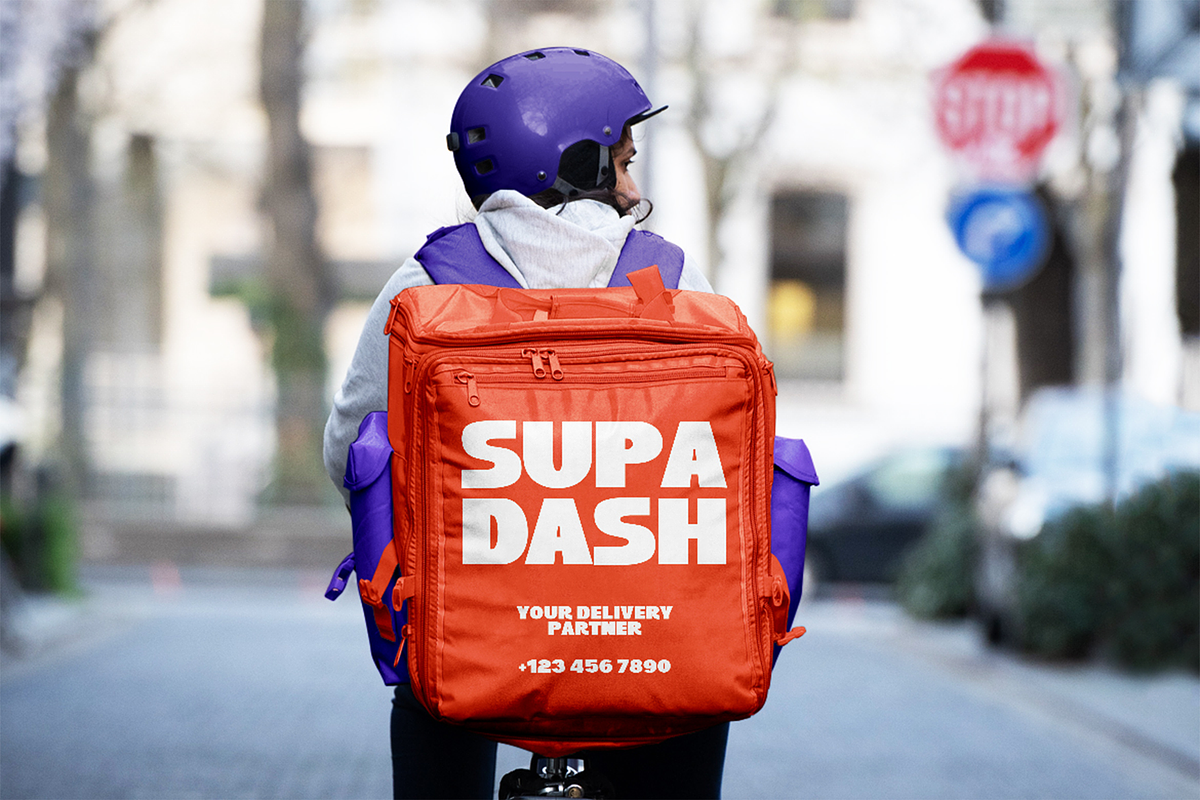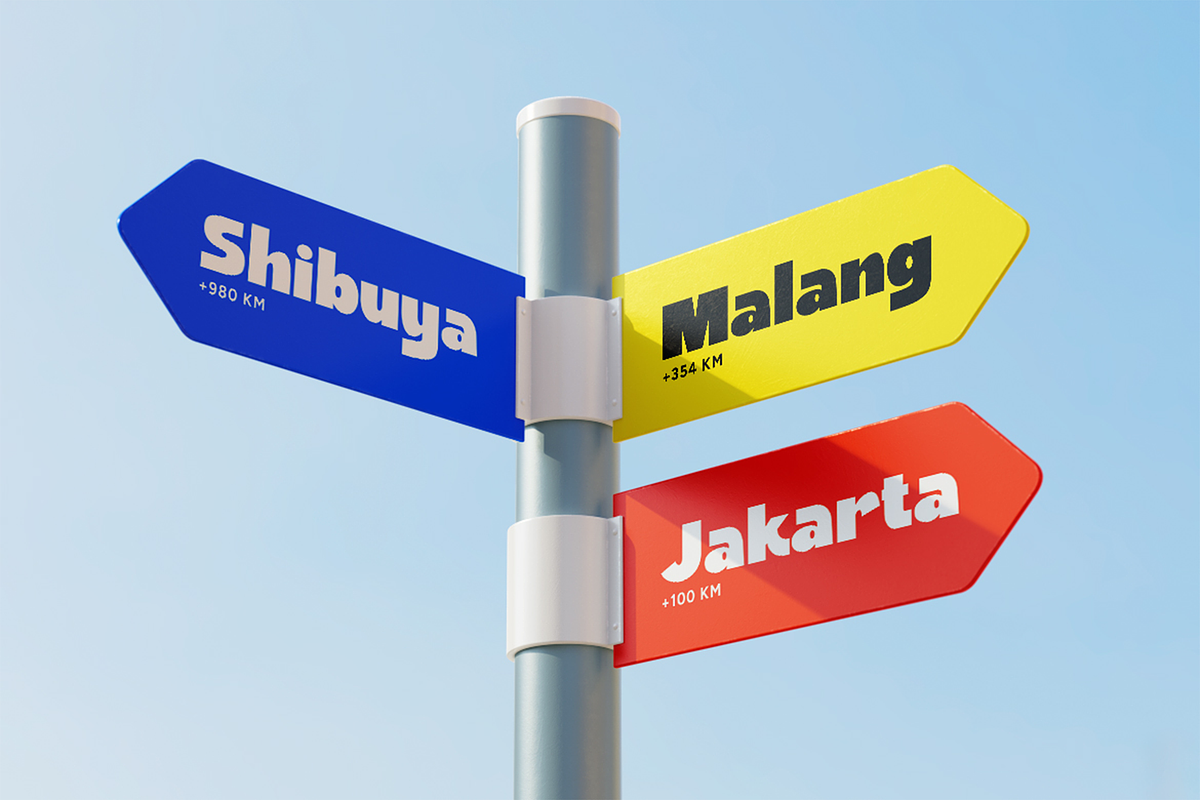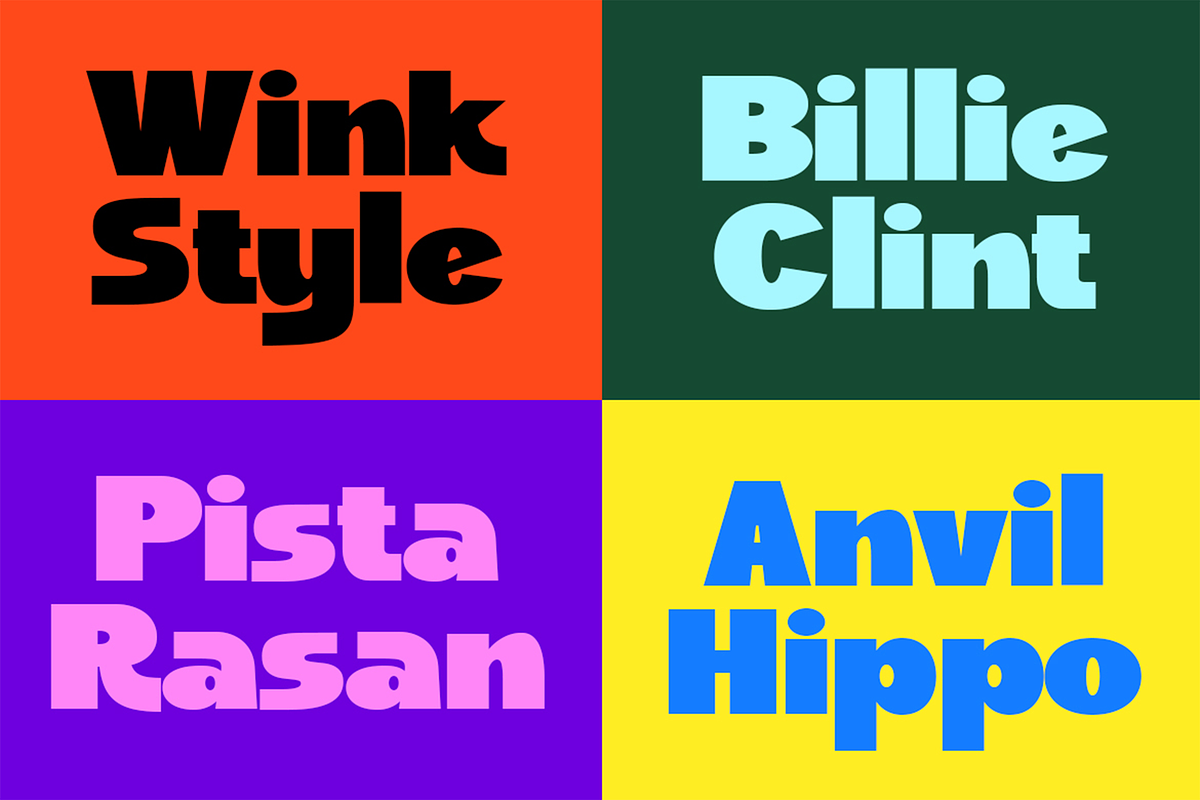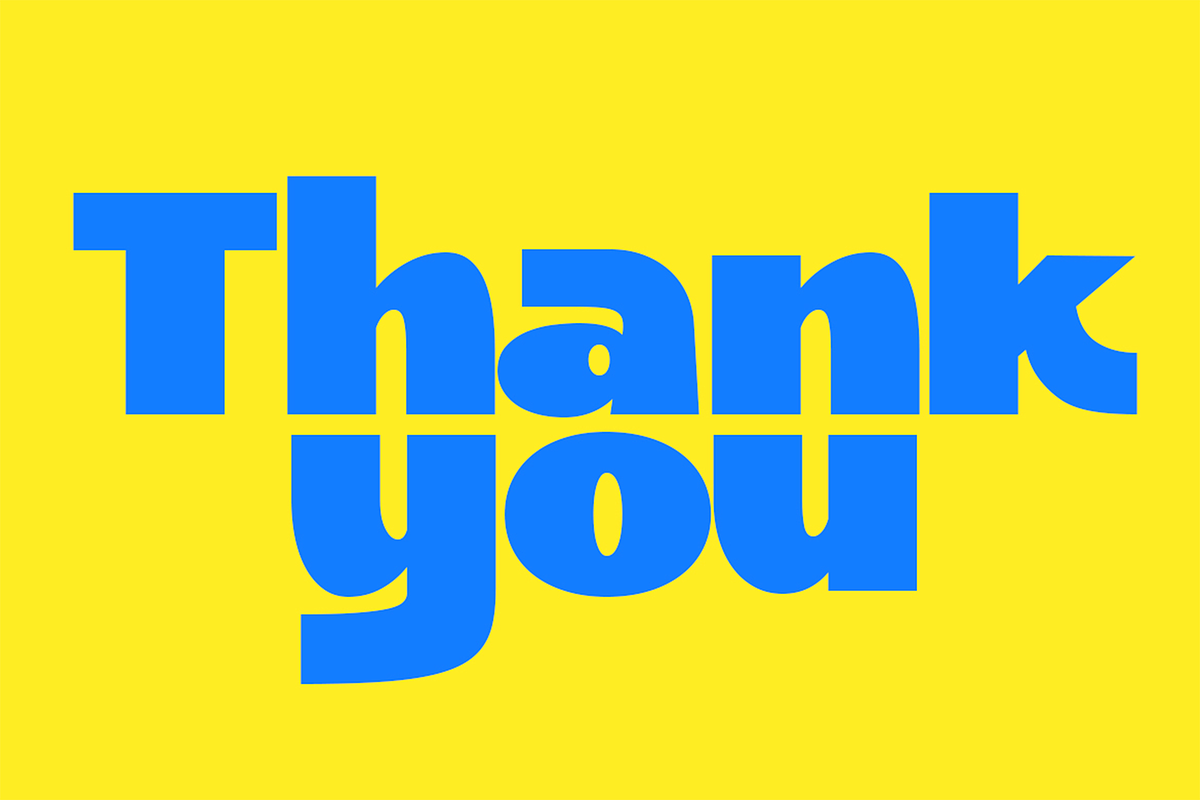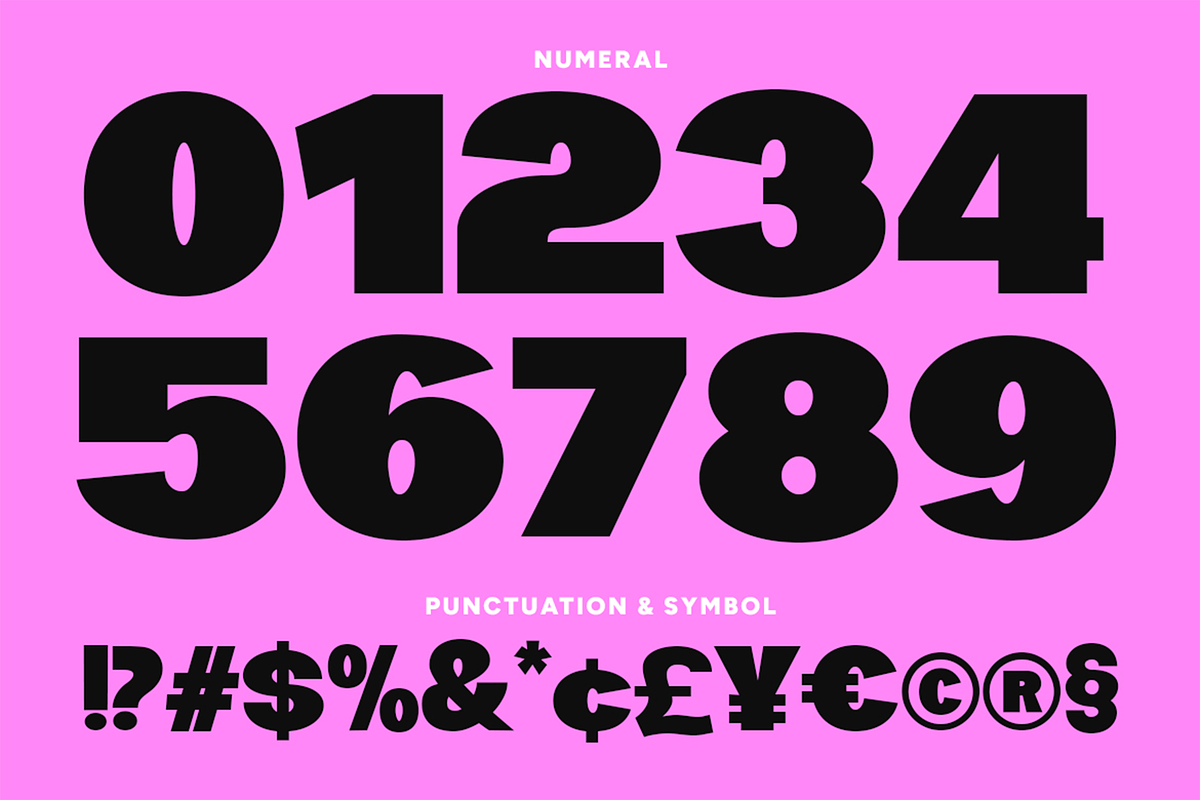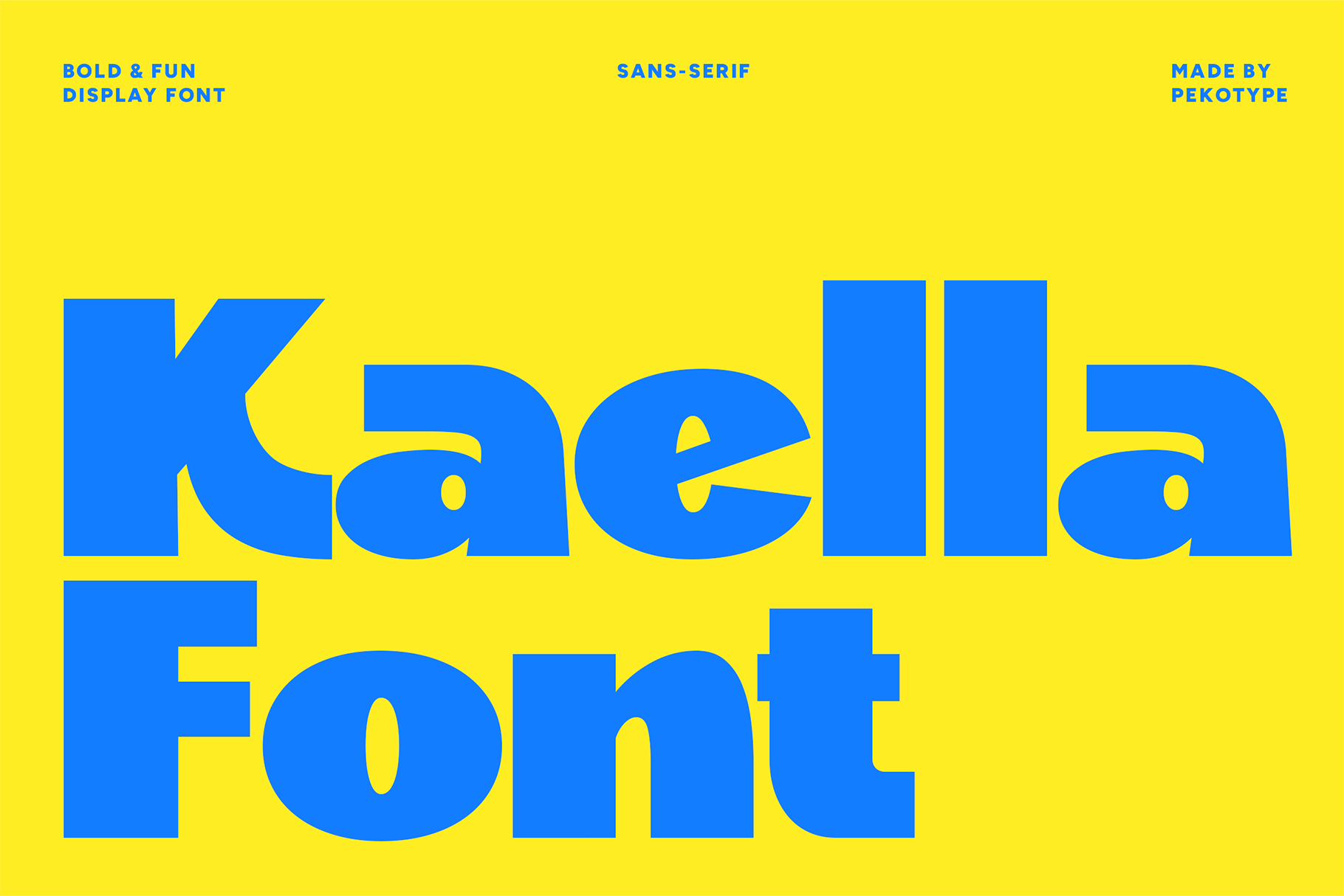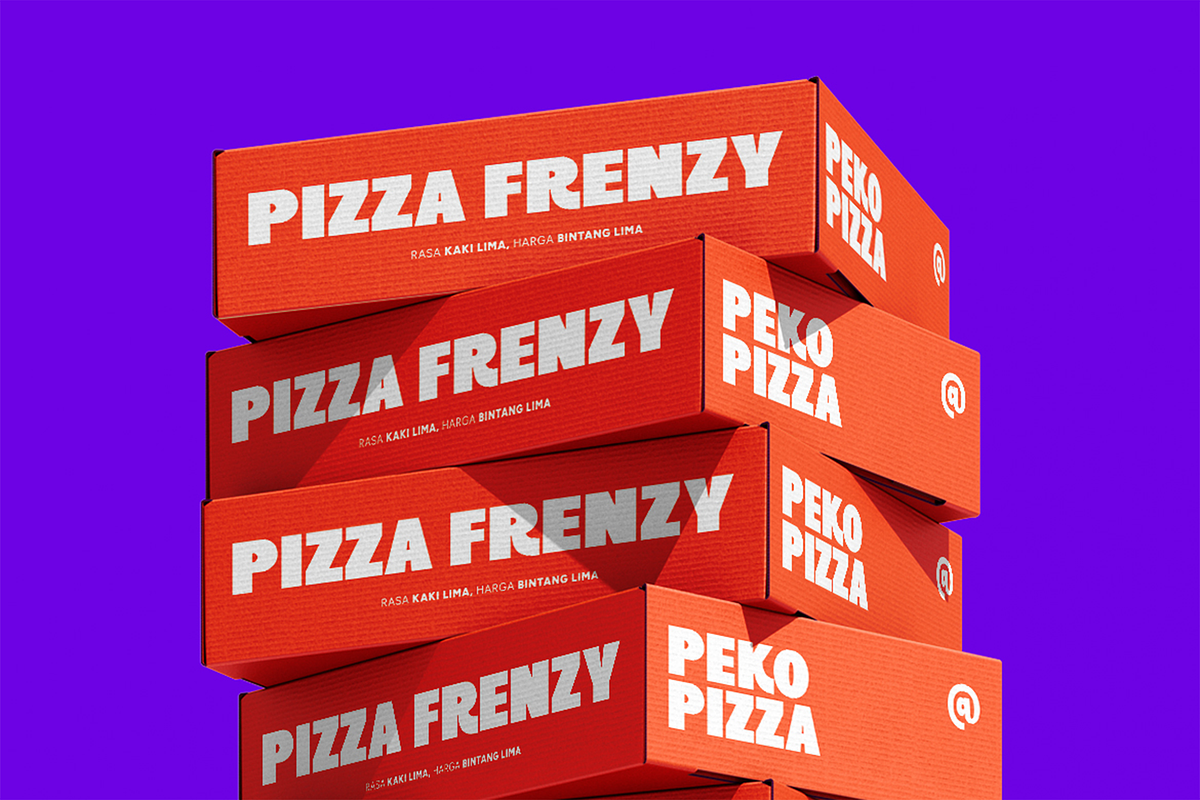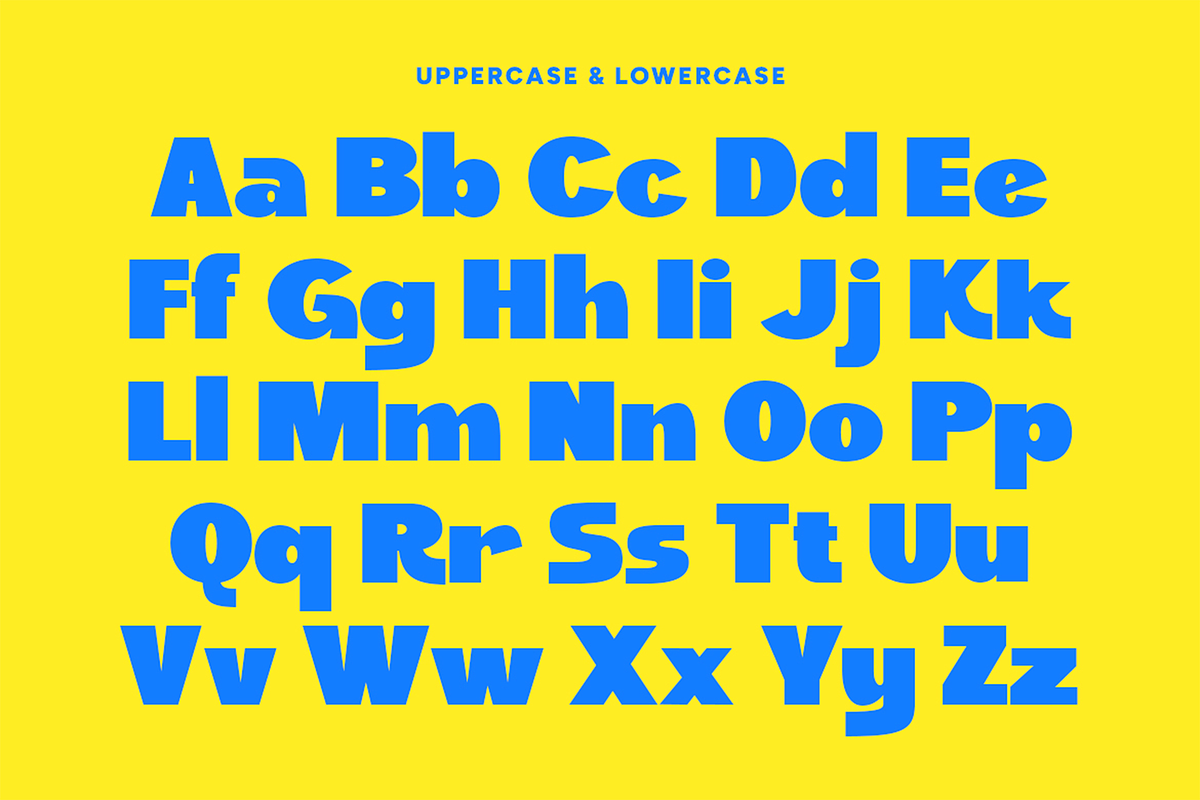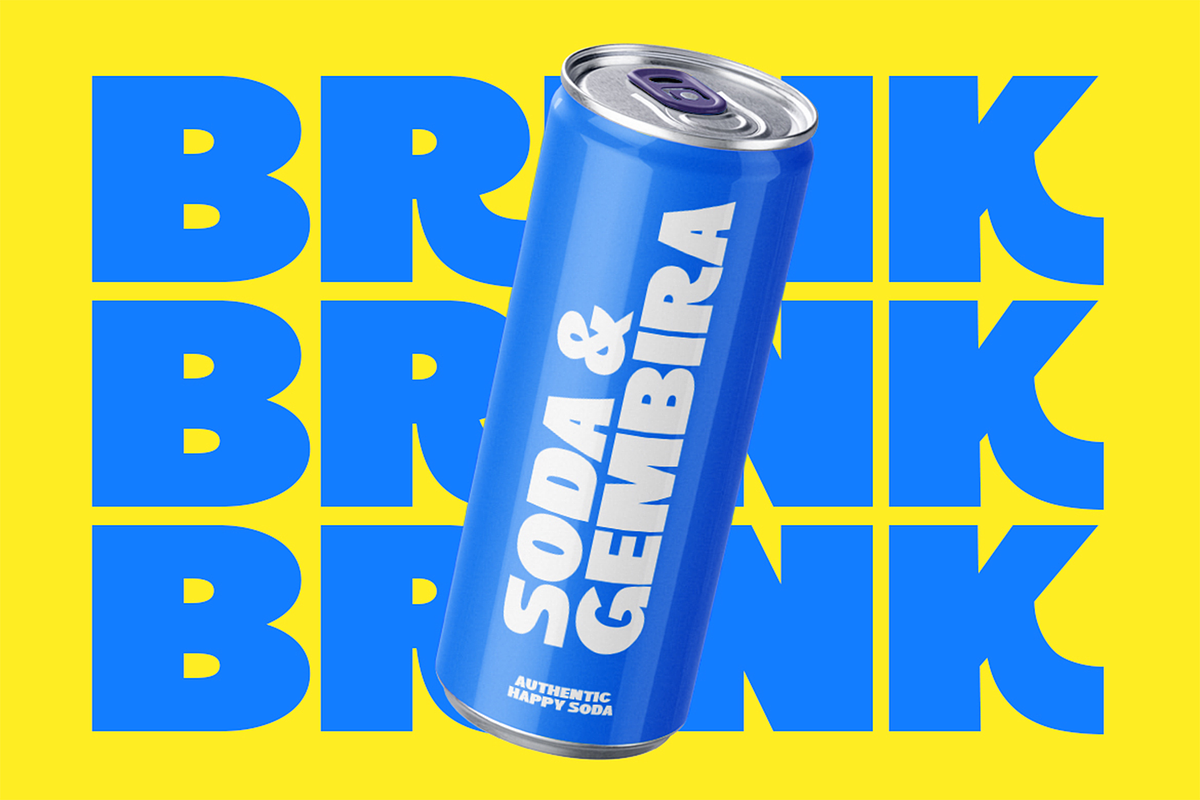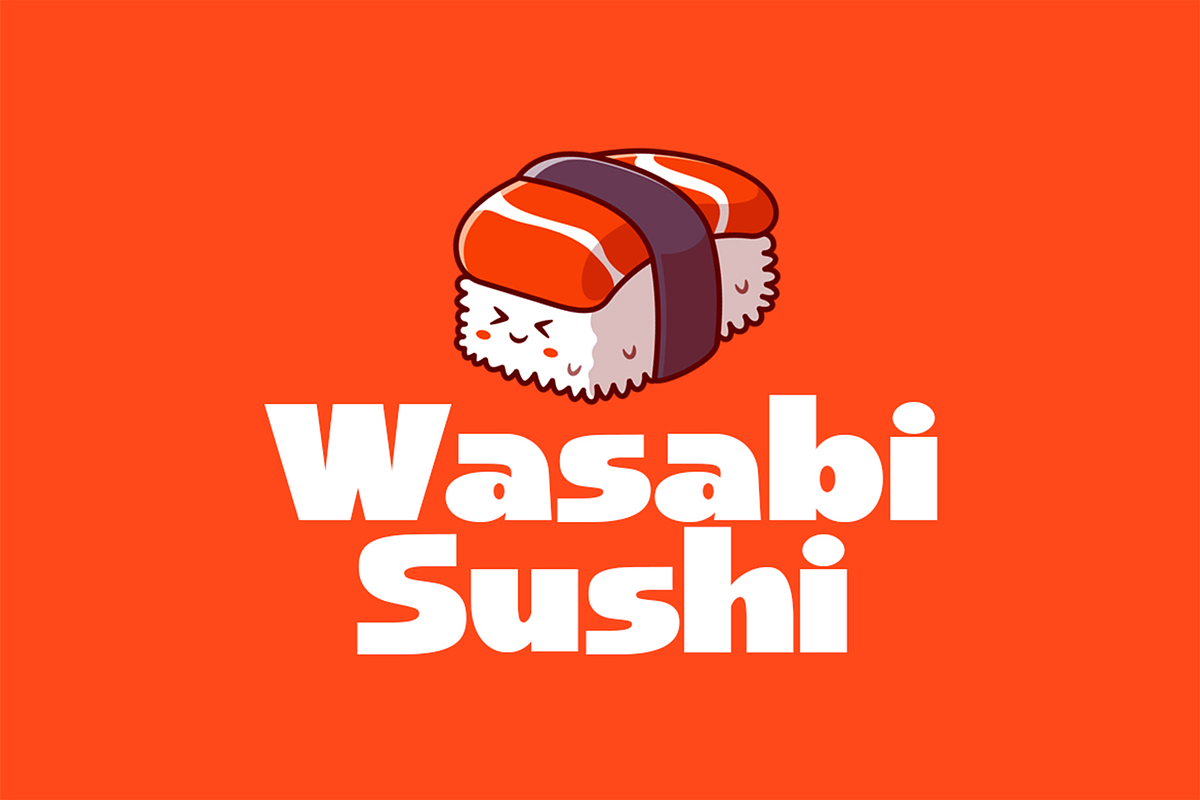
Kaella - Bold Display Font
KAELLA– A Bold, Fun, and Quirky Display Font for Standout Designs
Say hello to KAELLA, a bold display font bursting with personality! With its fat curves, fun shapes, and slightly quirky attitude, KAELLA is designed to make your message impossible to ignore. Whether you're crafting branding, logos, promotional materials, posters, or content for social media and print, KAELLA adds a modern and playful twist to every project.
KAELLA is more than just bold—it’s a font that stands out in any crowd, perfect for creatives looking to inject character and energy into their work. Its unique yet clean letterforms make it super versatile while still keeping that bold, fun vibe.
Ideal for:
- Branding & Logo Design
- Posters & Print Media
- Social Media Graphics
- Advertising & Packaging
- Number, symbol, & punctuation
- Minimalist and modern style
- Ideal for headlines, branding, film, posters, packaging, and digital content
Make your design unforgettable with KAELLA — the bold, modern display font that brings the fun.